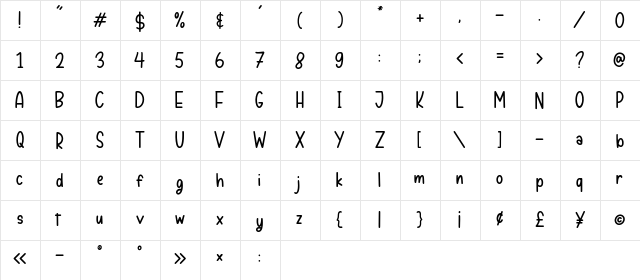
peachyday Regular
| Designer | Balpirick Studio. 2020. |
Design Context for peachyday Typeface
peachyday offers clean, dependable letterforms without strong stylistic allegiance, making it a practical choice for designers who need flexibility.